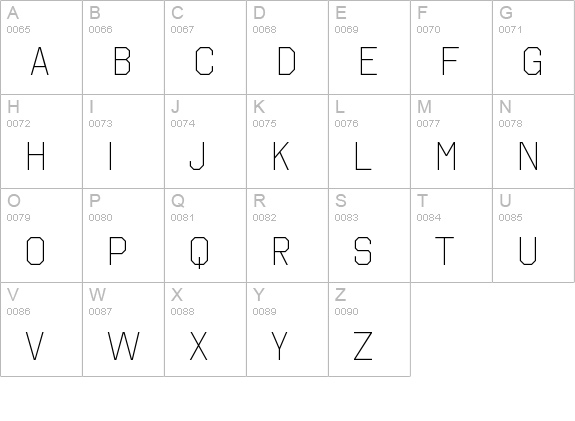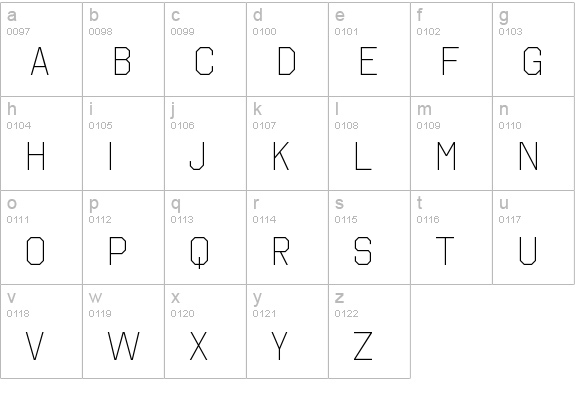
Octin College Lt Font Details
Octin College Lt is a versatile and modern font that exudes sophistication and professionalism. With its clean lines and sharp edges, this typeface is perfect for a wide range of design projects, from branding to editorial design. The sleek and elegant design of Octin College Lt is sure to make your projects stand out. What's even better is that Octin College Lt is available for free download at FontsMarket.com. This means you can easily access this high-quality font without any cost, making it a valuable addition to your font library. Whether you're a designer looking to elevate your projects or a student working on assignments, Octin College Lt is a fantastic choice for adding a touch of style and elegance to your work. Download it today and see the difference it can make in your designs.